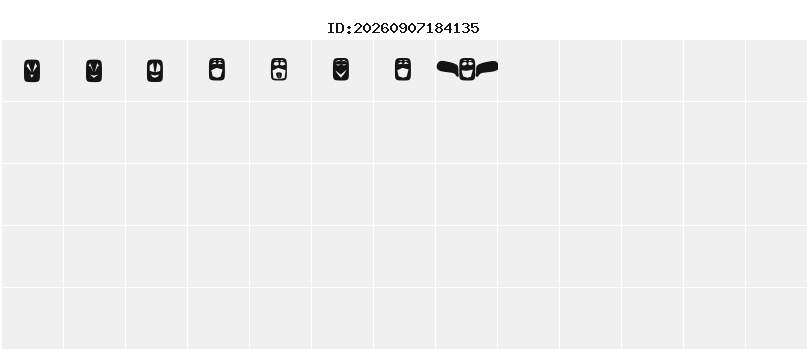
Ugly Faces Preview
• Font Name: Ugly Faces
• Full Font Name: Ugly Faces
• Character Count: 11
• Manufacturer: Christoph Köckerling
About Ugly Faces.ttf